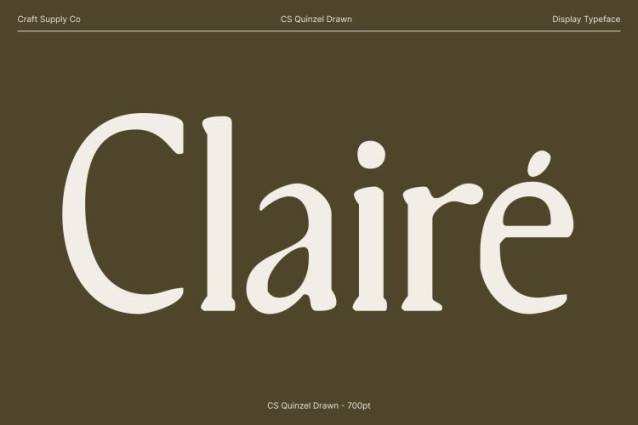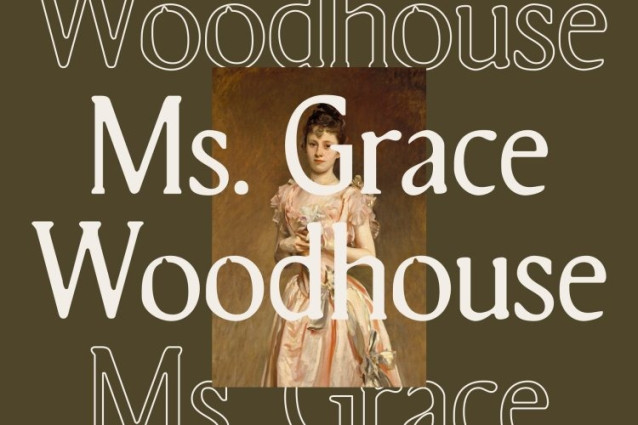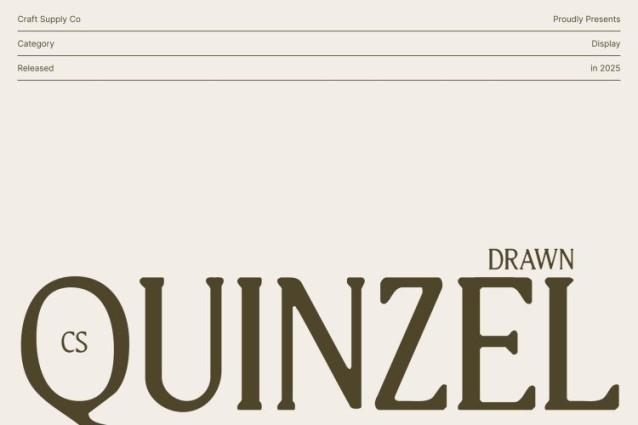
CS Quinzel Drawn Font
CS Quinzel Drawn Font This is a modern serif font that blends contemporary structure with timeless elegance. Its graceful letterforms feature sharp lines, subtle curves, and refined proportions, while the hand-drawn texture adds a unique, handcrafted quality. This combination creates a typeface that feels both sophisticated and approachable.
Balanced Structure and Refined Details
Each character in this font exhibits a harmony of crisp edges and delicate serif accents, enhanced by the drawn effect. The result is a visually pleasing rhythm that communicates professionalism, clarity, and artistic nuance perfect for designs that demand precision with personality.
Clean, Elegant, and Readable
With sleek lines and elegant forms, this font projects a poised and confident tone. Its modernized classic style, combined with thoughtful spacing and subtle handcrafted details, makes it suitable for both text and display applications where readability and sophistication are essential.
Versatile for Professional and Luxury Design
This font excels in luxury branding, editorial layouts, and corporate identities. Its fusion of traditional elegance with modern, handcrafted character adds credibility, style, and visual impact, making it a versatile font for designers seeking a refined, contemporary serif with unique personality.